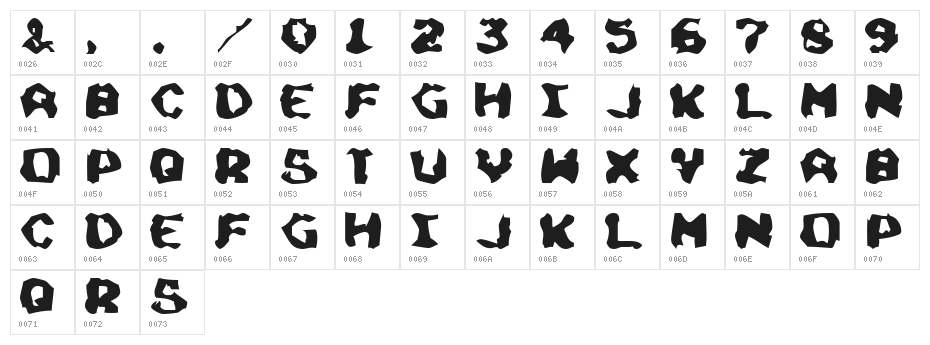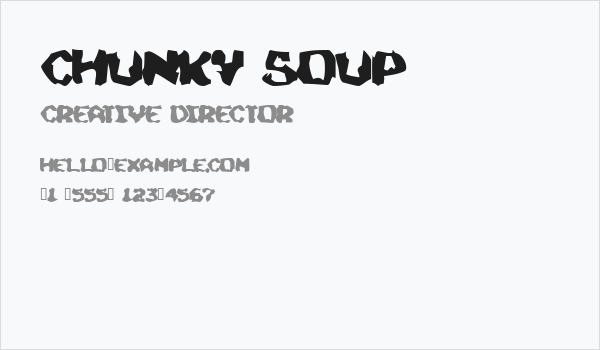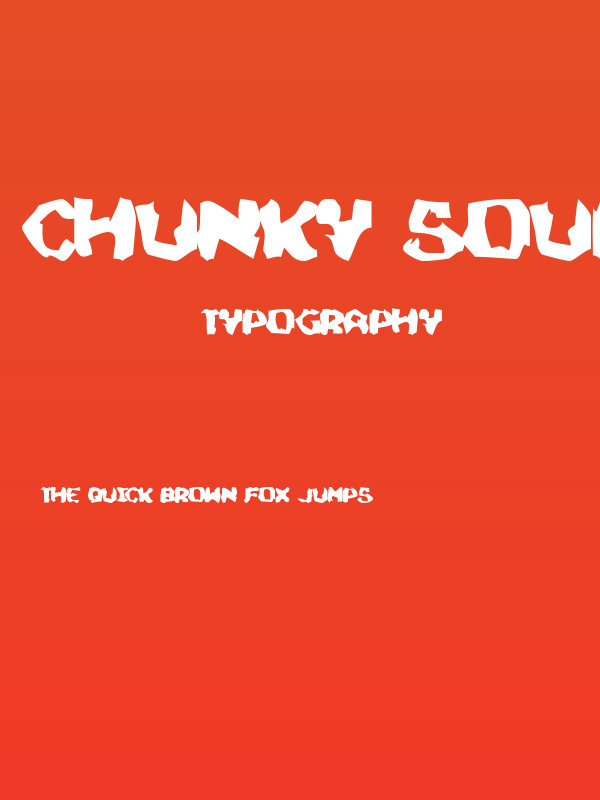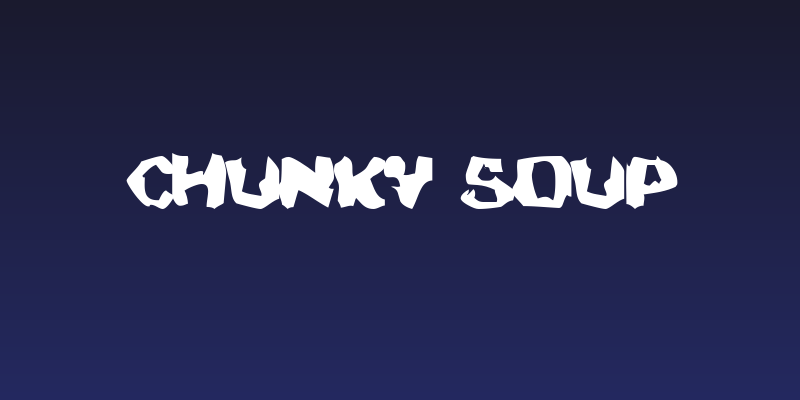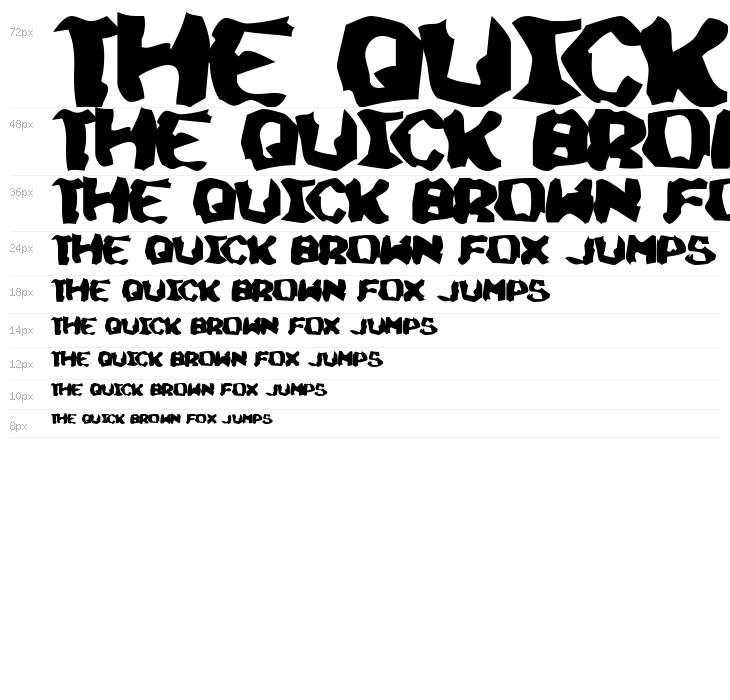
Chunky Soup Font
Chunky Soup Description
This font features a bold and dynamic style with a distinctly rugged appearance. The characters are heavily stylized, with thick strokes and irregular edges that give them a hand-crafted look. The uppercase and lowercase letters maintain a consistent weight, contributing to a cohesive visual impact. Numbers and special characters follow the same bold and irregular design, ensuring uniformity across all glyphs. The font's unique style makes it stand out, offering a sense of movement and energy. Its boldness and distinctive character shapes make it suitable for creative and eye-catching designs.
| Proposed Projects | Ideal for posters, album covers, branding projects, and any design requiring a bold, artistic touch. |